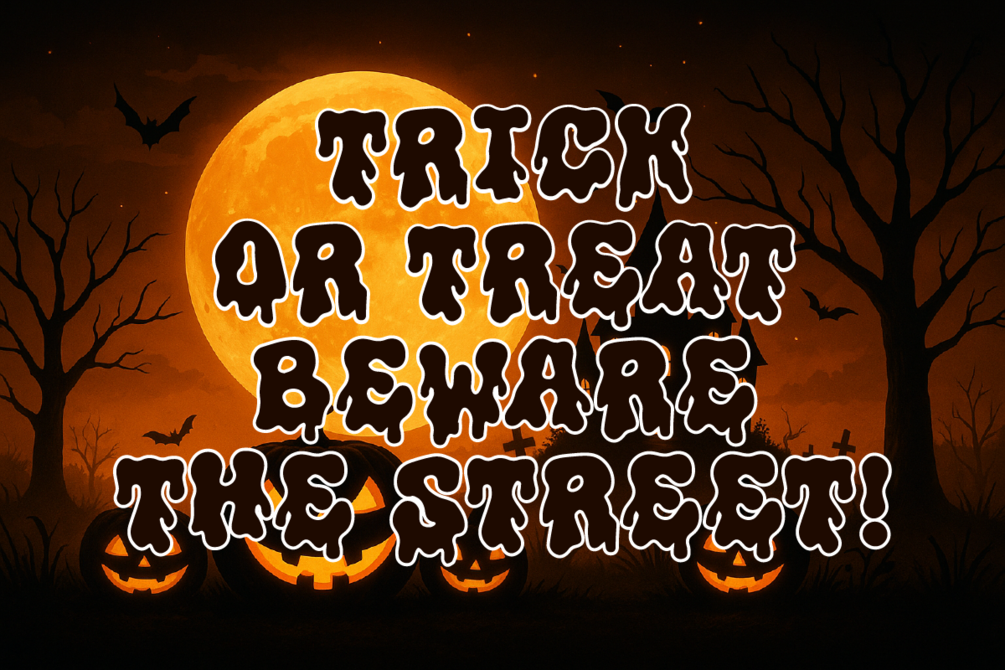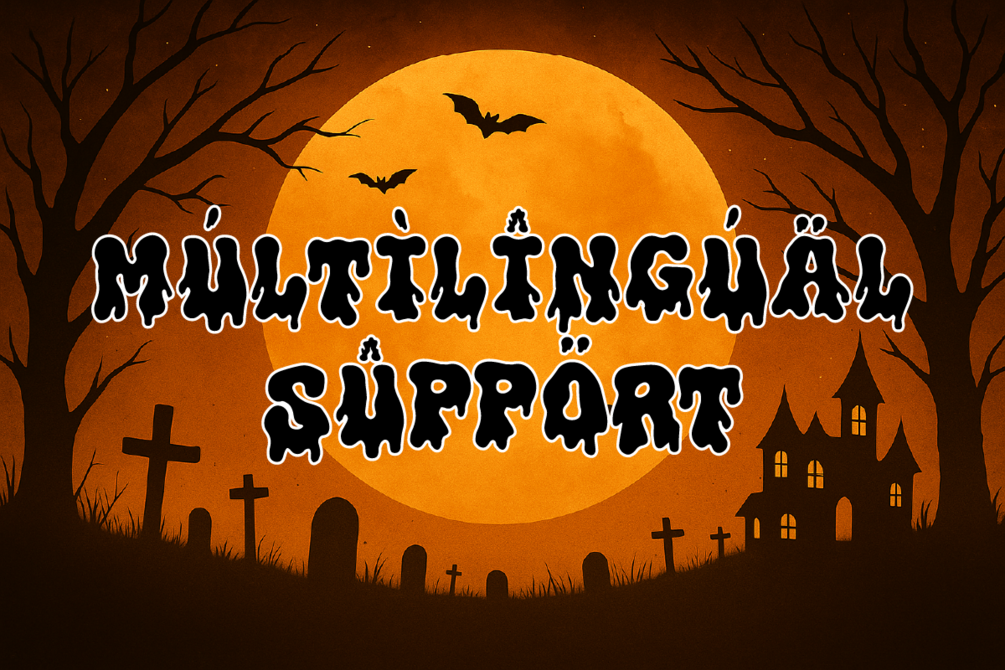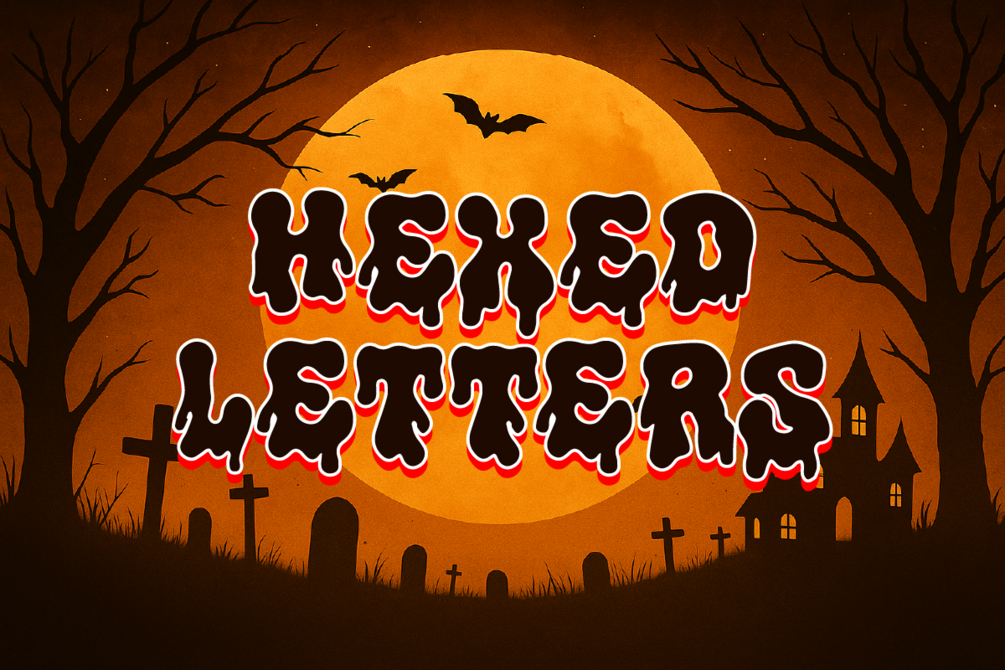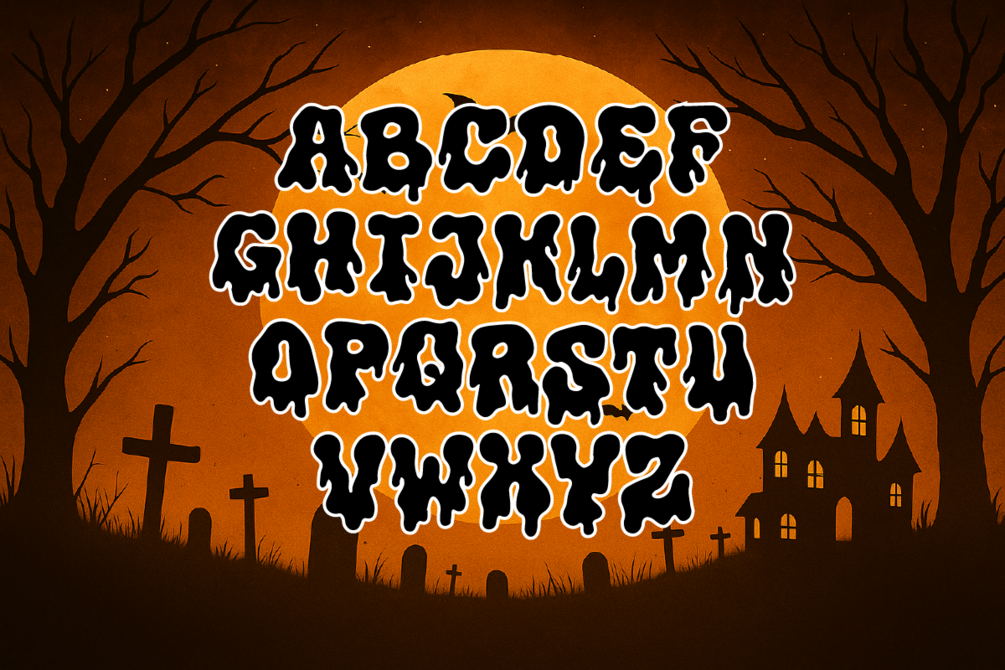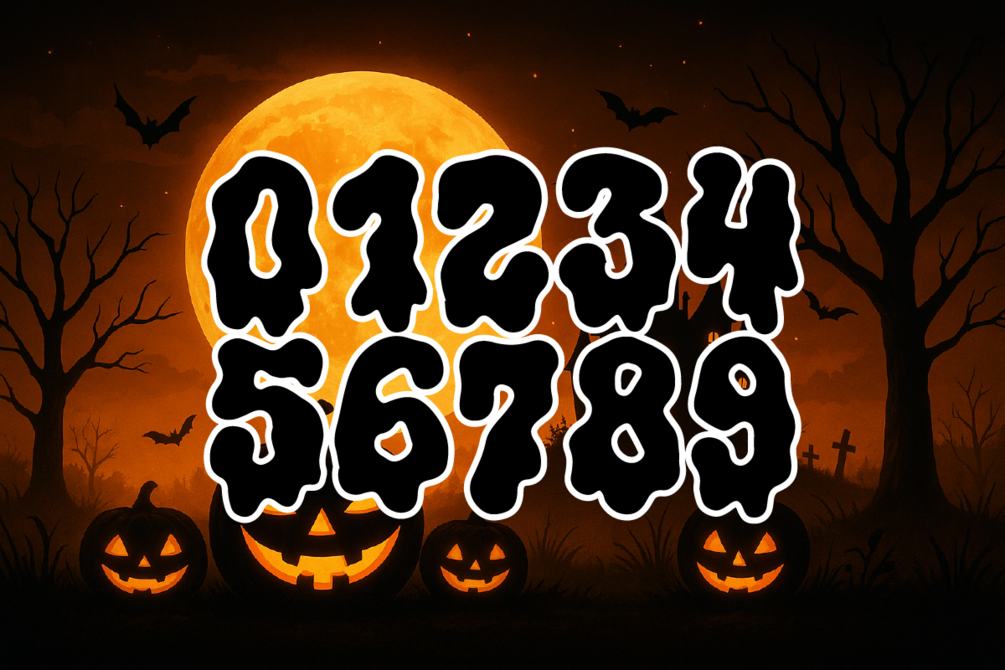
Hexed Letters Horror Display Typeface
Hexed Letters is a professionally crafted horror display typeface designed to deliver a bold, eerie, and highly expressive visual impact. Characterized by its dripping, melting letterforms, this typeface captures the essence of classic Halloween themes while maintaining modern design clarity and strong readability.
Perfect for designers seeking a distinctive spooky aesthetic, Hexed Letters adds instant character and atmosphere to any project. Its fluid shapes, thick silhouettes, and dramatic presence make it an excellent choice for seasonal branding, headline typography, packaging, apparel graphics, posters, and digital promotions.
Whether you're creating Halloween campaigns, haunted event materials, creepy title screens, or thematic merchandise, Hexed Letters provides a unique and memorable visual signature that stands out effortlessly.